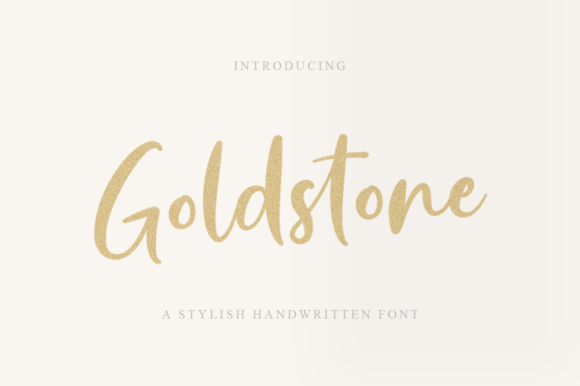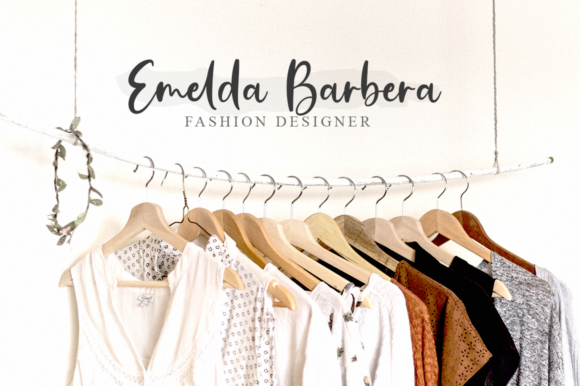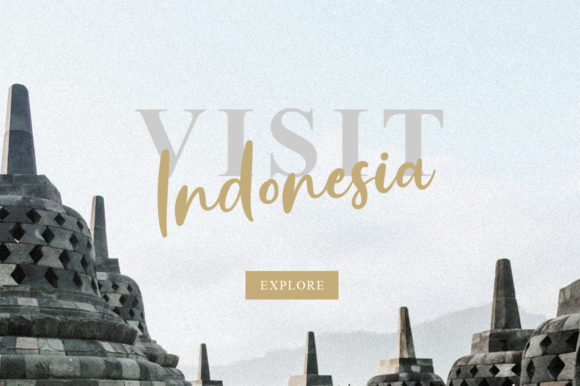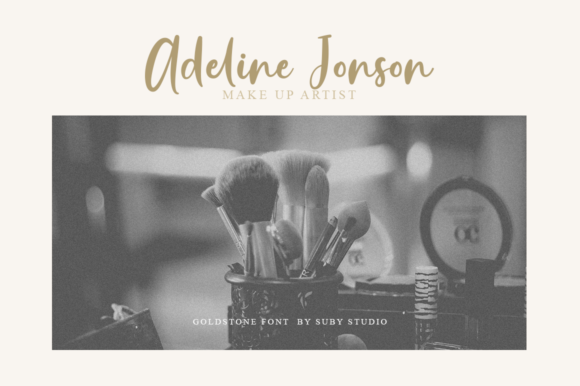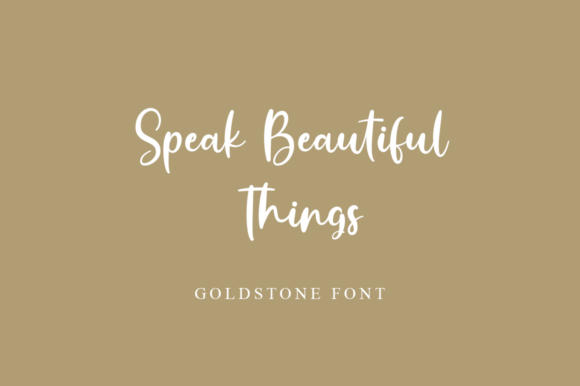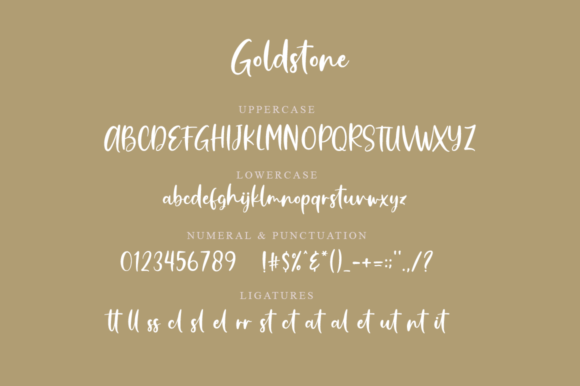
Goldstone Font
About Goldstone Font
Goldstone is a stylish handwritten font with unique style. Goldstone is perfectly suited to signature, stationery, logo, typography quotes, magazine or book cover, clothing, branding, packaging design and more.